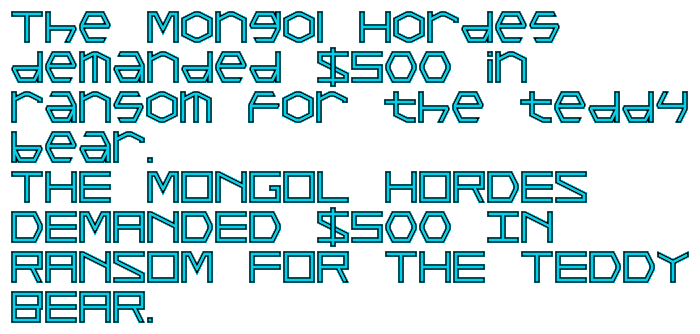
General Products Font
by Pixel Kitchen
About General Products Font
One of my earliest designs! This was made to have an industrial sci-fi look, as if the letters were made with tape or a paint roller. It was initially designed to be ALL UPPERCASE, so think of the lowercase as an alternate set.